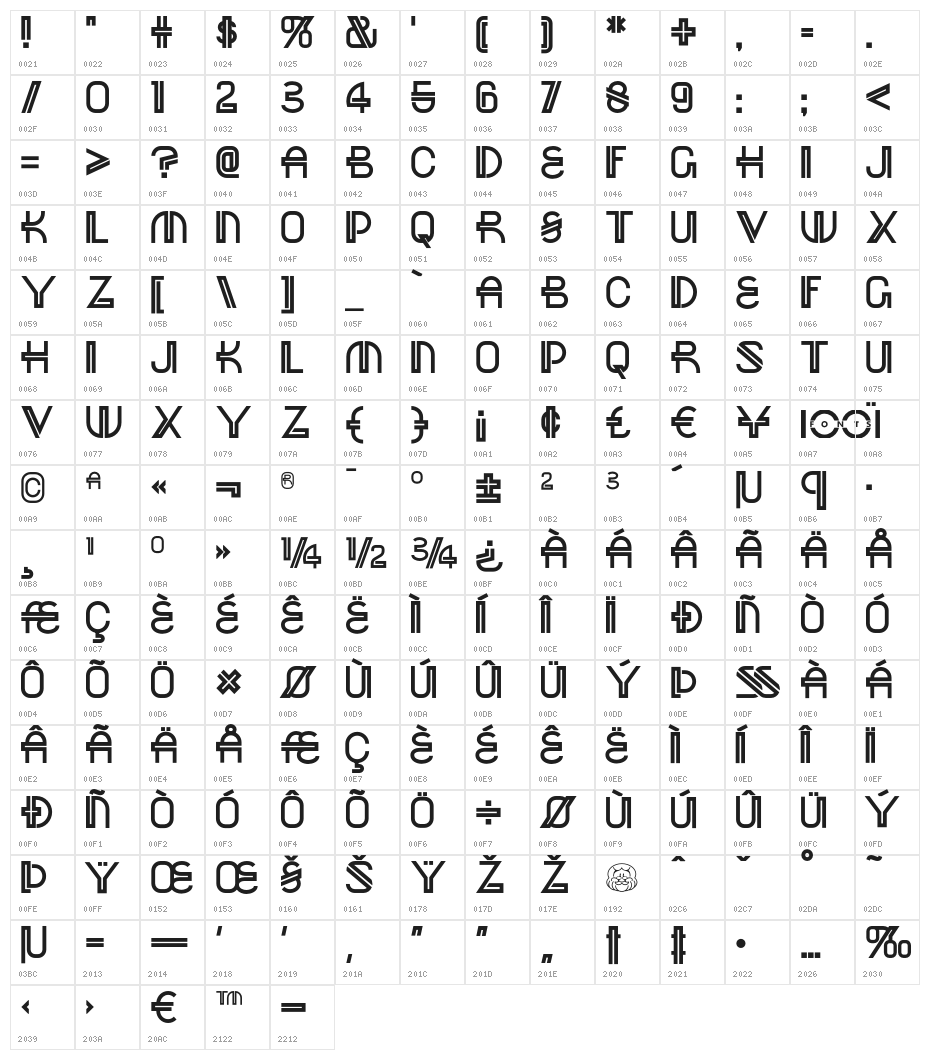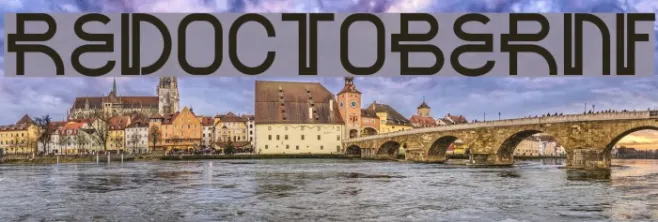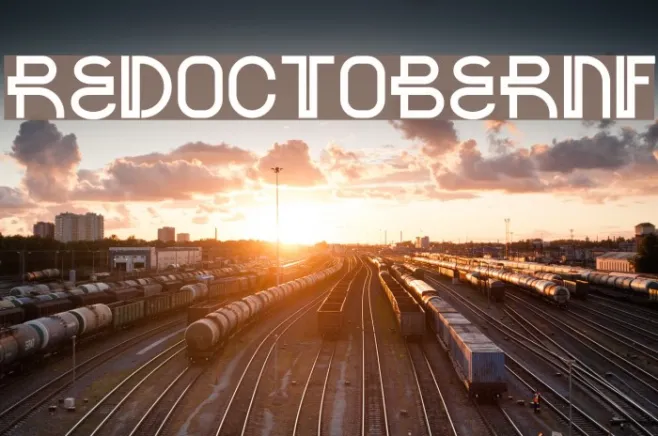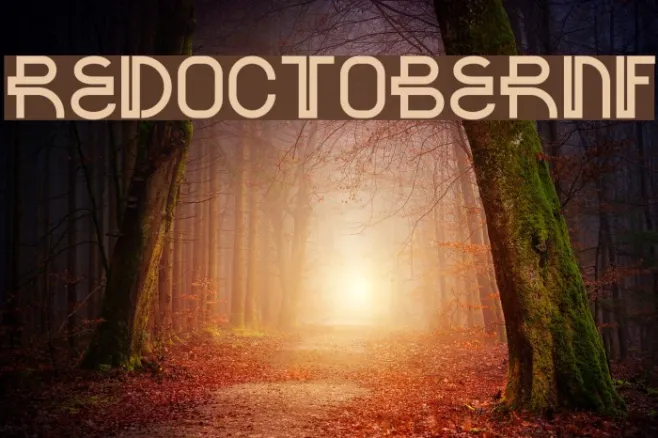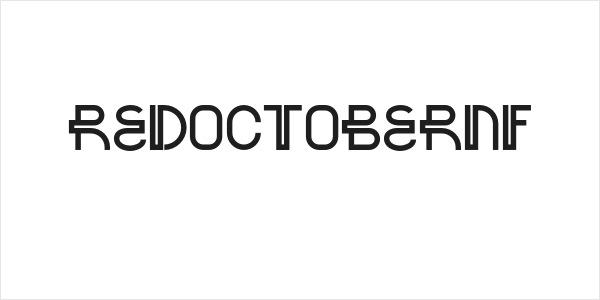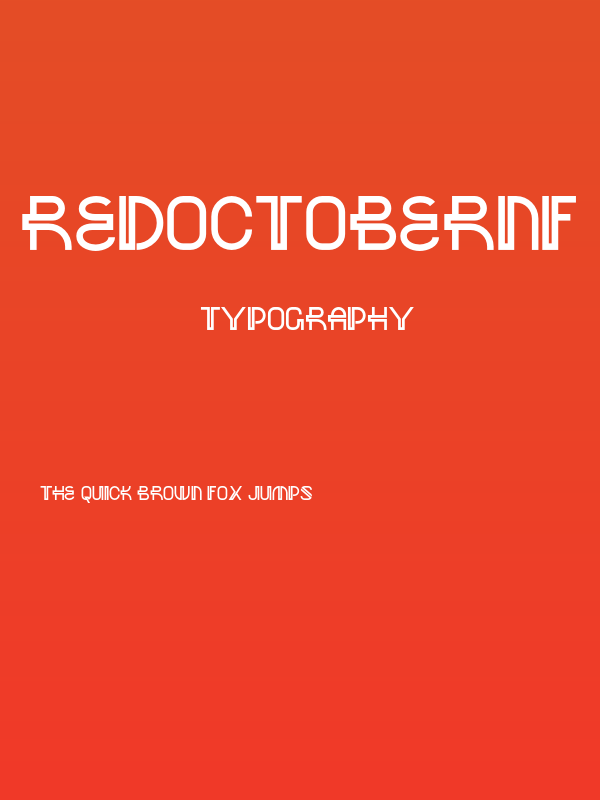
RedOctoberNF Font
RedOctoberNF Description
This font features a bold, geometric design with a strong emphasis on angular shapes and clean lines. The uppercase letters are distinct with sharp edges and a futuristic feel, while the lowercase letters maintain a consistent style that complements the uppercase. The numerals are equally bold, with a uniform height that matches the uppercase letters, ensuring a cohesive look across all characters. Special characters are designed to fit seamlessly with the overall aesthetic, making this font suitable for modern and innovative design projects. The consistent stroke width and lack of serifs contribute to its contemporary appearance.
| Proposed Projects | Ideal for technology branding, sci-fi themed posters, modern logos, and digital interfaces. |